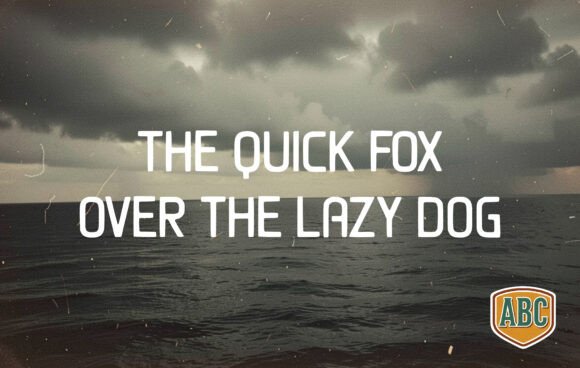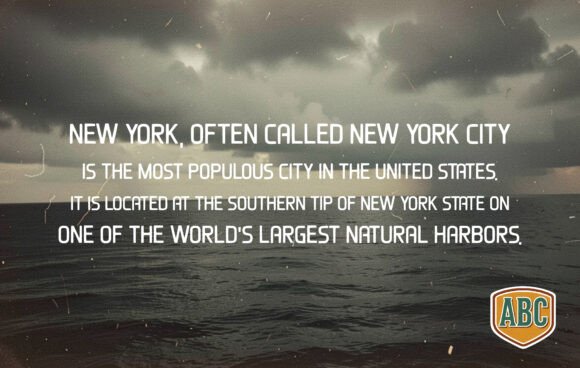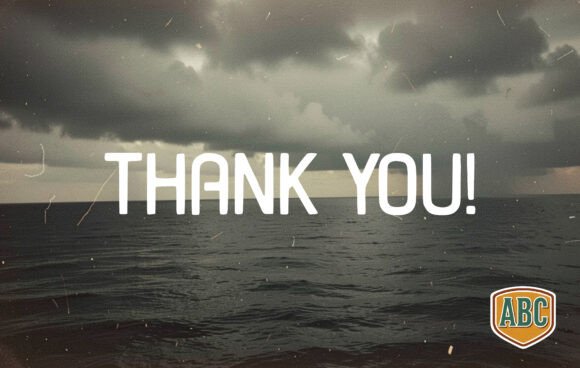
The Power of Dark Sea: A Display Font that Packs a Punch
I’ll never forget the design project that led me to discover Dark Sea. I was working on a branding campaign for a new outdoor gear company, and I needed a font that could convey a sense of ruggedness and reliability. After hours of scrolling through font libraries, I stumbled upon Dark Sea – a powerful display font that instantly caught my attention. Its bold, industrial aesthetic seemed to scream “outdoor adventure,” and I knew I had found the perfect fit.
An Honest Review of Dark Sea
- ✅ Authority and approachability: Dark Sea’s unique blend of ruggedness and modernity makes it perfect for headlines and branding.
- ✅ Legibility: The font’s uniform stroke weight and clean lines ensure that it remains clear and readable, even at smaller sizes.
- ✅ Versatility: Dark Sea works seamlessly across various media, from digital banners to physical signage.
- ⚠️ Limited suitability for body text: Dark Sea is a display font, and its bold weight can be overwhelming for longer blocks of text.
- ⚠️ Some glyphs may require manual adjustment: Depending on the context, certain glyphs (like the ampersand or dollar sign) might require manual tweaking to fit seamlessly with the rest of the text.
The Design Story Behind Dark Sea
Dark Sea was designed with the goal of creating a powerful, industrial-strength font that still felt approachable and modern. The design team drew inspiration from the rugged beauty of the ocean and the clean lines of modern architecture. The result is a font that exudes confidence and authority, while still being elegant and refined.
Q: What is Dark Sea’s personality?
A: Dark Sea is a bold, industrial-strength font with a modern, minimalist aesthetic. It’s perfect for headlines, branding, and display text.
Q: Can I use Dark Sea for body text?
A: While Dark Sea is a versatile font, it’s primarily designed for display text. Its bold weight can be overwhelming for longer blocks of text.
Q: Does Dark Sea support OpenType features?
A: Yes, Dark Sea supports OpenType features, including stylistic alternates and glyphs. You can access these features in compatible applications like Adobe Creative Cloud.
Q: Is Dark Sea suitable for digital and print projects?
A: Absolutely! Dark Sea’s clean lines and uniform stroke weight ensure that it remains legible and visually appealing across various media, from digital banners to physical signage.